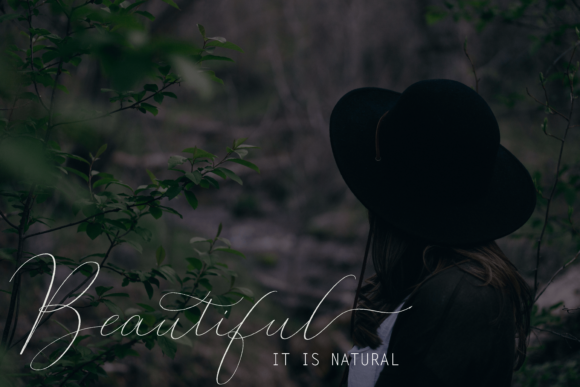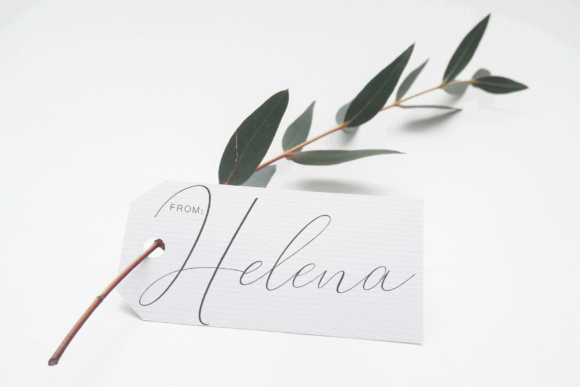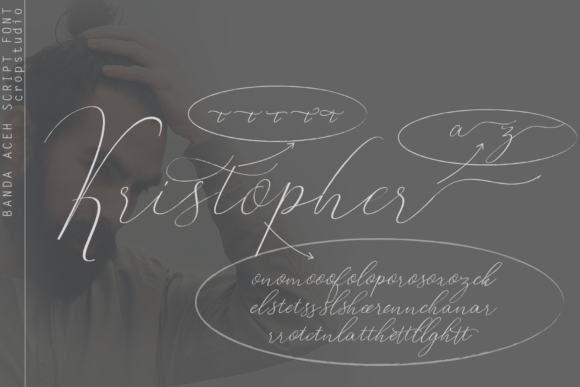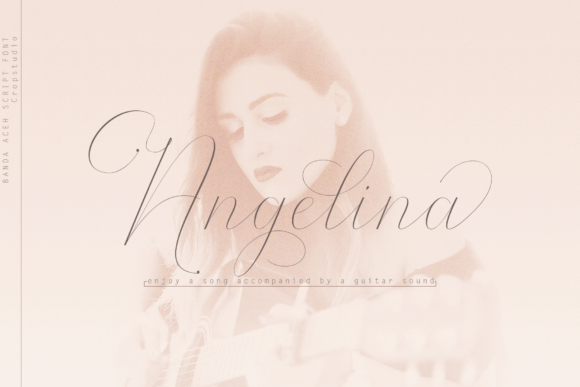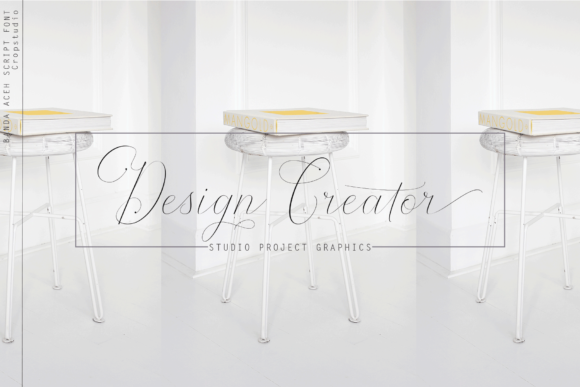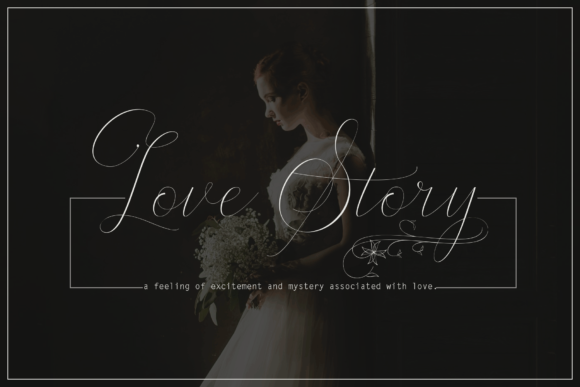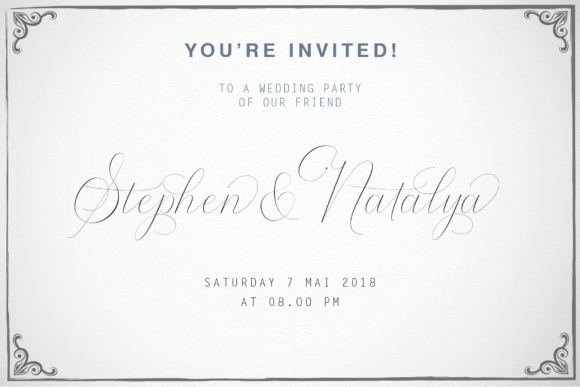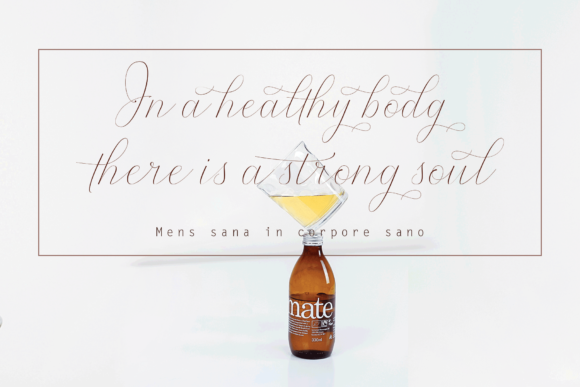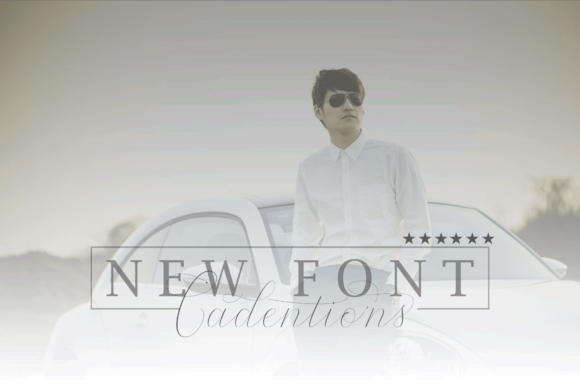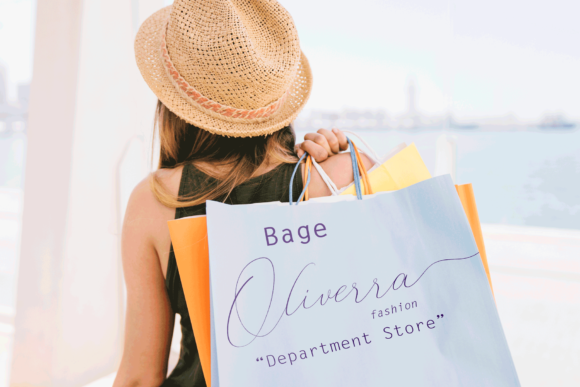
Rodanthe Duo Font
About Rodanthe Duo Font
Rodanthe and Kristopher are beautiful calligraphic font scripts, designed in a modern style so that the font is beautiful and pleasing to the eye. With it’s variation of styles and beautiful swashes, Rodanthe Duo can be used for various designs, for example: brands, t-shirts, packaging brands, greeting cards, invitation cards, etc.